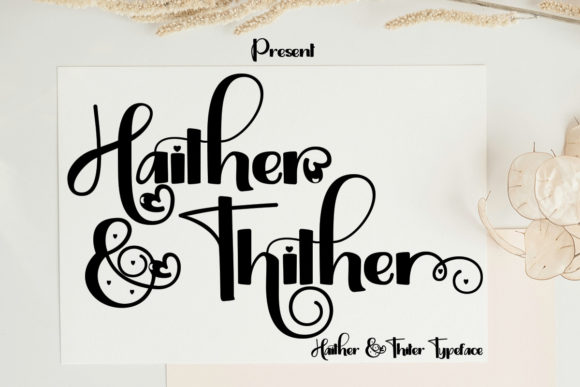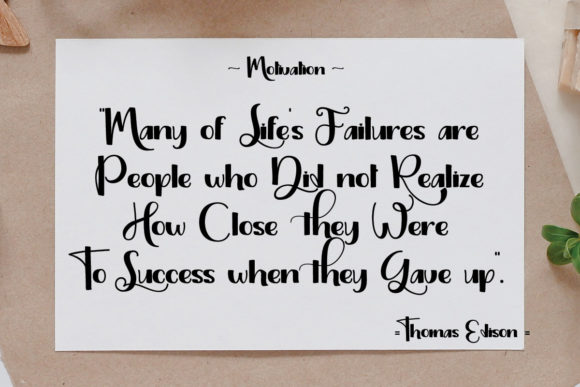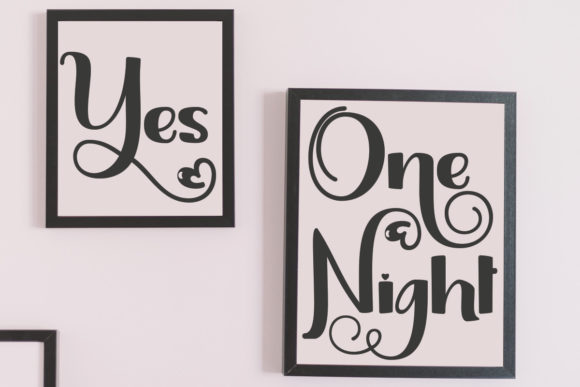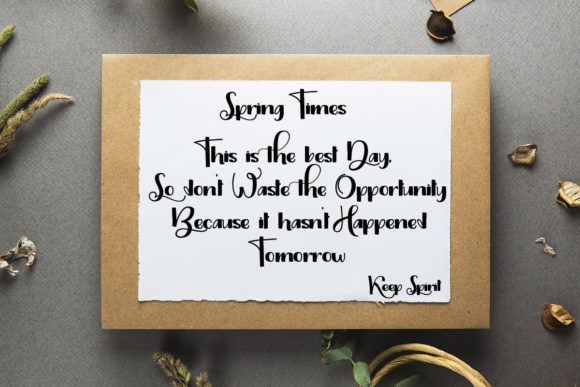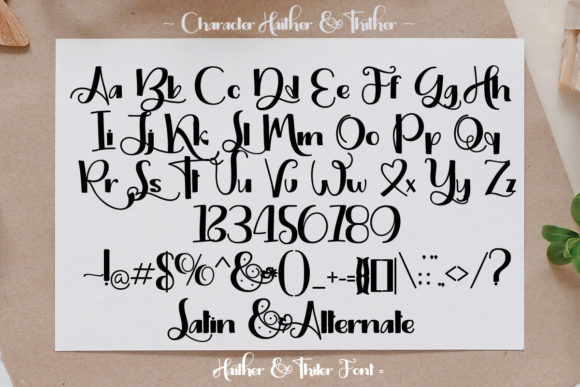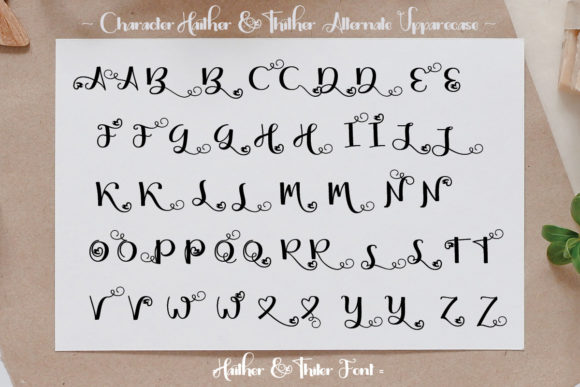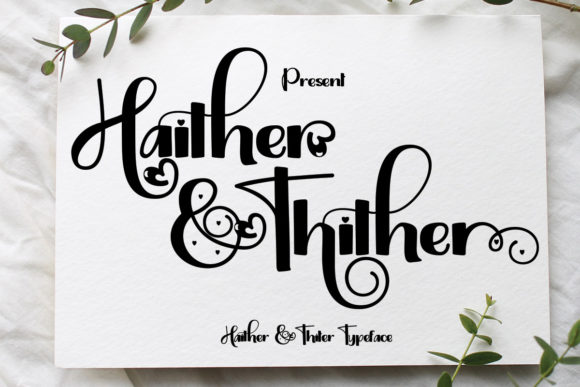
Introducing Haither and Thiter Font: Elevate Your Designs with Elegance
In the world of typography, fonts play a crucial role in bringing designs to life. Whether you’re a seasoned designer or a crafty enthusiast, finding the perfect font can make all the difference in creating visually stunning projects. If you’re on the hunt for a unique and captivating display font, look no further than Haither and Thiter. This charming font is sure to leave a lasting impression on your design ideas, and we’re excited to dive into its features and benefits.
A Distinct and Charming Display Font
Haither and Thiter is a one-of-a-kind display font that boasts an eye-catching appearance. Its distinct charm is sure to elevate your designs, making them stand out from the crowd. With Haither and Thiter, you can add a touch of elegance and sophistication to your projects, whether they’re for personal or professional use. From stunning logos and posters to beautiful branding materials and craft projects, this font is the perfect choice.
One of the standout features of Haither and Thiter is its PUA (Private Use Area) encoding. This means that you can easily access all the amazing glyphs and ligatures that this font has to offer. With PUA encoding, you can unlock a world of creative possibilities, making it simple to incorporate the font’s unique characters into your designs. No more tedious searching for the perfect symbol or struggling with complicated font editing – Haither and Thiter’s PUA encoding makes it easy to get started.
Haither and Thiter’s versatility knows no bounds. This font can be used for a wide range of design projects, including:
- Logos and branding materials: Create a lasting impression with a unique and memorable logo that showcases your brand’s personality.
- Posters and flyers: Grab attention with bold, eye-catching headings that demand to be noticed.
- Social media graphics: Elevate your social media presence with stunning graphics that showcase Haither and Thiter’s charm.
- Craft projects: Add a touch of elegance to your handmade crafts, such as cards, scrapbook pages, and DIY decorations.
Why Choose Haither and Thiter?
With so many fonts available, why choose Haither and Thiter? Here are just a few reasons why designers and crafters love this font:
- Unique and distinctive: Haither and Thiter stands out from the crowd, offering a fresh alternative to overused fonts.
- Elegant and sophisticated: This font exudes refinement and poise, making it perfect for designs that require a touch of luxury.
- Easy to use: With PUA encoding, accessing the font’s glyphs and ligatures is a breeze.
- Highly versatile: Haither and Thiter can be used for a wide range of design projects, from logos to craft projects.
Get Creative with Haither and Thiter
Ready to unlock the full potential of Haither and Thiter? Here are some tips to get you started:
- Experiment with different sizes and colors to create a unique look.
- Pair Haither and Thiter with other fonts to create a stunning contrast.
- Use the font’s glyphs and ligatures to add visual interest to your designs.
- Don’t be afraid to push the boundaries of typography – Haither and Thiter is designed to inspire creativity.
In conclusion, Haither and Thiter is a game-changing display font that’s sure to elevate your designs. With its unique charm, PUA encoding, and endless design possibilities, this font is a must-have for designers and crafters alike. So why wait? Get creative with Haither and Thiter today and discover a world of typographic possibilities!